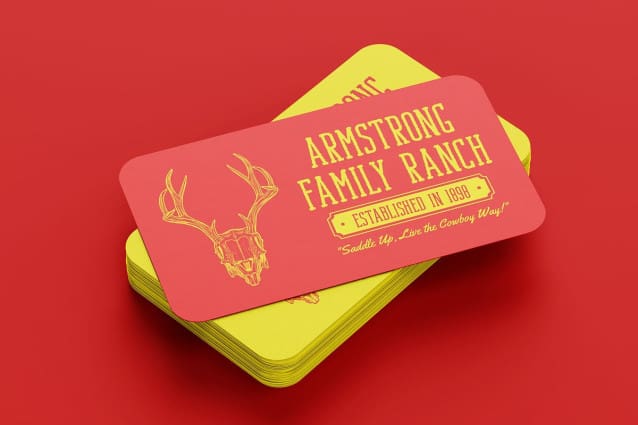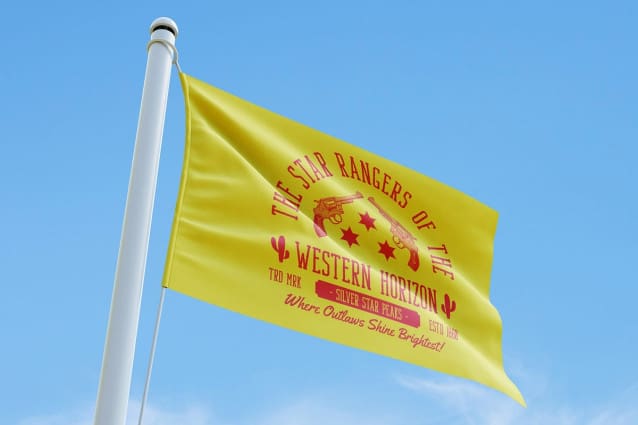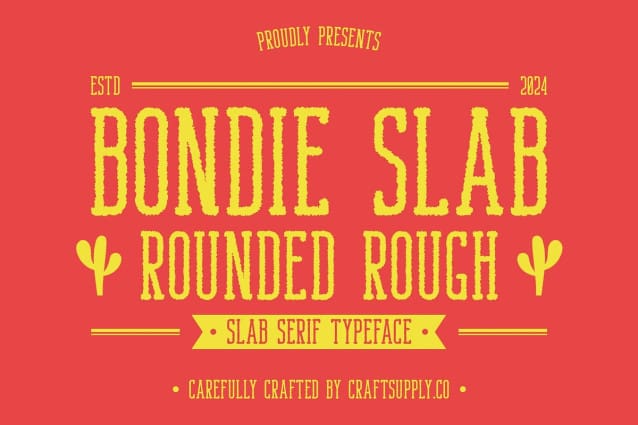
Bondie Slab Rounded Rough Font
Bondie Slab Rounded Rough Font: A Playful Twist on Modern Serif. Modern Slab Serif with a Playful Touch This modern serif font that beautifully blends boldness with a playful twist. Featuring a unique slab design, this font showcases condensed and rounded shapes that create a visually striking and distinctive appearance. Its friendly curves enhance the overall aesthetic, making it perfect for designs that aim to capture attention while conveying a sense of approachability.
Rough Texture for Distinctive Character The unique rough texture of this rounded rough font enhances its character, giving it a visually striking and distinctive presence. This textured effect draws attention and adds depth, making it an excellent choice for eye-catching headlines and creative layouts.
Versatile for Creative Applications Ideal for various creative applications, this font adapts seamlessly to branding, posters, and promotional materials. Its modern style adds a sense of warmth and approachability, making it suitable for both casual and formal contexts.
Contemporary Style with Warmth With its contemporary design, this rounded rough font captures a modern aesthetic while offering an inviting feel. This font is perfect for designers looking to convey a friendly yet professional tone, ensuring your message stands out in any setting.